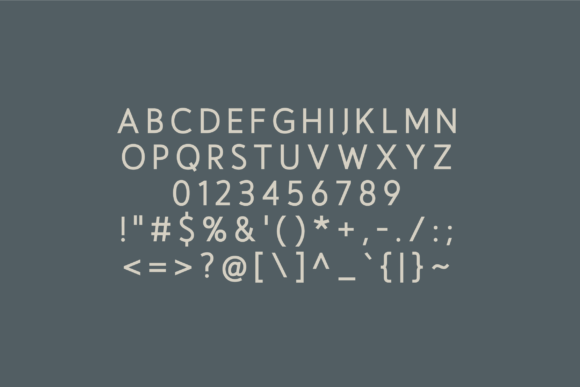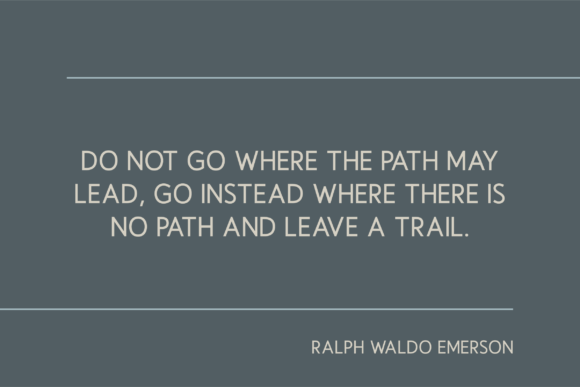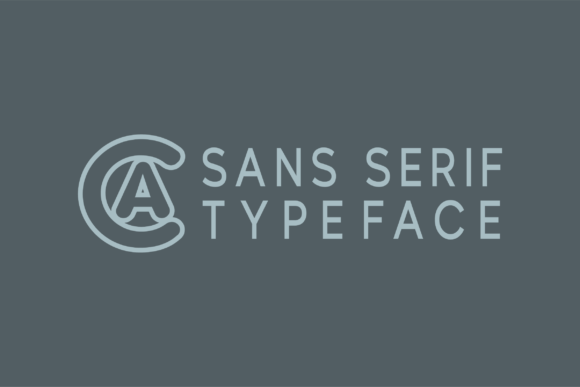
Introduction to Honeyboom Font
Have you ever been working on a creative project and wished you had the perfect font to bring your vision to life? For designers, finding the right font can make all the difference between a good design and a great one. That’s why we’re excited to introduce you to the Honeyboom Font – a high-quality, sans serif typeface that’s sure to elevate your design game.
With its transparent background and free download option, the Honeyboom Font is an invaluable resource for designers of all levels. Whether you’re working on a small-scale project or a large-scale design initiative, this font is sure to impress. From advertisements to magazines, the Honeyboom Font brings a touch of sophistication and elegance to any design space.
Key Features of Honeyboom Font
- High-quality design resource with a unique and playful style, perfect for creative projects.
- Transparent background, making it easy to use in various design applications, including graphics and web design.
- Includes a range of font sizes and resolutions, from 72 dpi to 300 dpi, catering to different design requirements.
- Designed with a focus on creativity, allowing users to express themselves through various design projects, from logos to typography.
Honest Review: Honeyboom Font
I recently had the opportunity to work with the Honeyboom Font, and I must say, it’s been a game-changer for my design projects. This high-quality font has quickly become one of my go-to design resources.
- ✨ Unique and modern design: The Honeyboom Font has a clean and modern aesthetic that adds a touch of sophistication to any creative project.
- ✨ Transparent background: This feature makes it easy to use the font on various backgrounds, ensuring that it stands out without overpowering the rest of the design.
- ⚠️ Limited font weights: While the font is modern and stylish, it would be great to have more font weights to choose from, especially for more complex design projects.
- ⚠️ Not suitable for all projects: The Honeyboom Font is best suited for digital designs, as it may not translate as well to print materials.
Overall, I’m thoroughly impressed with the Honeyboom Font. It’s a versatile and stylish design resource that’s perfect for any creative project. Just be mindful of its limitations and use it accordingly.
The Honeyboom Font is a high-quality design resource perfect for creative projects. With its unique and elegant design, it’s ideal for various applications, including digital and print materials.
Getting the Most Out of Honeyboom Font
For optimal results, use the Honeyboom Font in combination with other design elements, such as graphics and images. Experiment with different font sizes, colors, and arrangements to create visually appealing designs.
The Honeyboom Font is suitable for various design projects, including:
- Branding materials and logos
- Print and digital advertisements
Alternatives to Honeyboom Font
Fontin is a high-quality sans-serif font ideal for creative projects requiring a clean and modern design resource. It features a transparent background and is suitable for both digital and print applications.
Fontin is similar to Honeyboom Font in its minimalist aesthetic, but it has a slightly more geometric feel. Use Fontin when you need a font that is easy to read and versatile for various design projects.
Montserrat is a popular sans-serif font that is perfect for high-contrast designs, offering a clear and modern look. It’s a great design resource for creative projects that require a clean and sophisticated feel.
Montserrat has a more condensed feel compared to Honeyboom Font, making it ideal for headings and titles. Use Montserrat when you need a font that is strong and versatile for a variety of creative projects.
Does the Honeyboom Font have a transparent background?
Yes, the Honeyboom Font features a transparent background, making it ideal for use on images with complex backgrounds. This allows designers to easily overlay the font on top of other design elements, creating visually striking and creative projects.